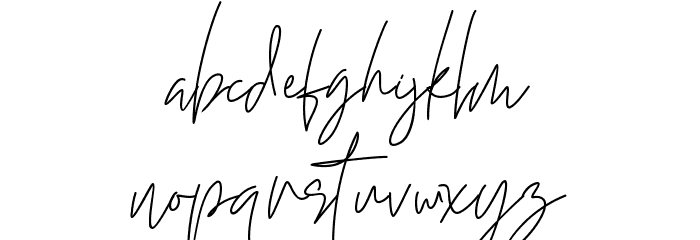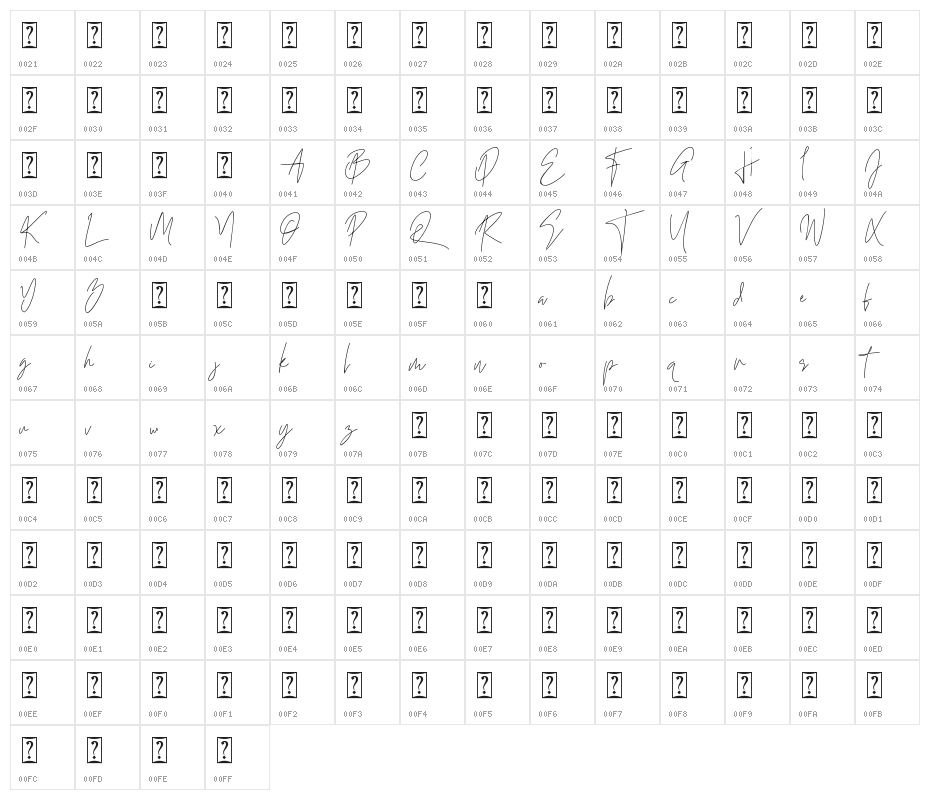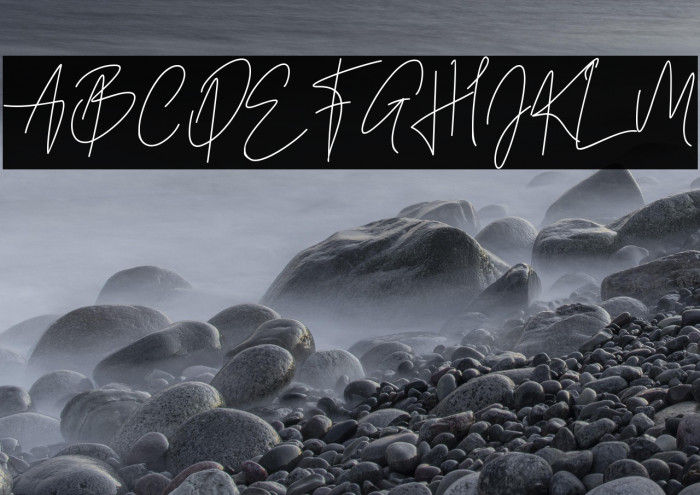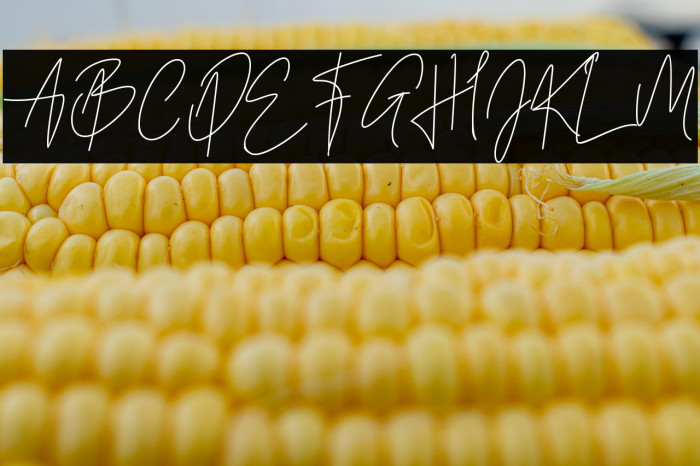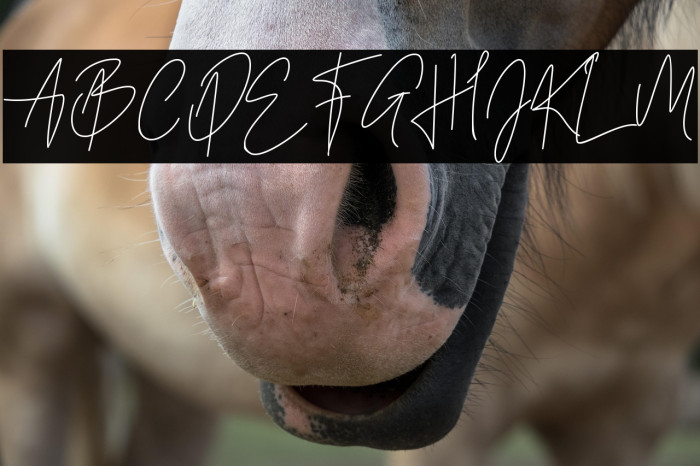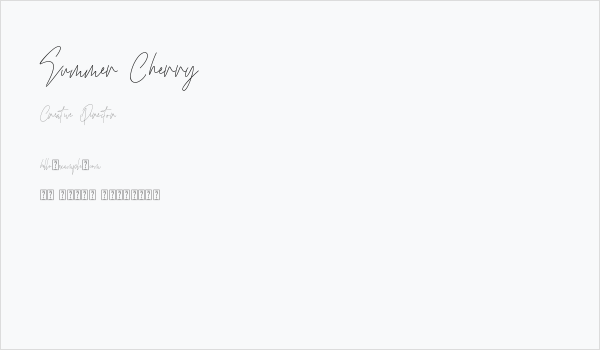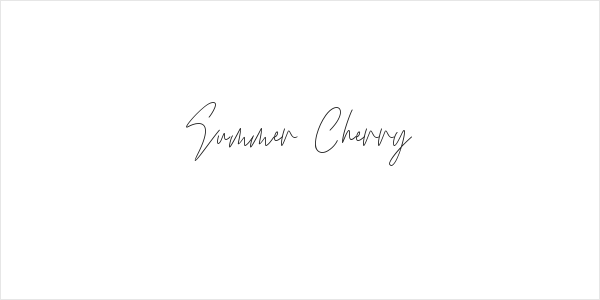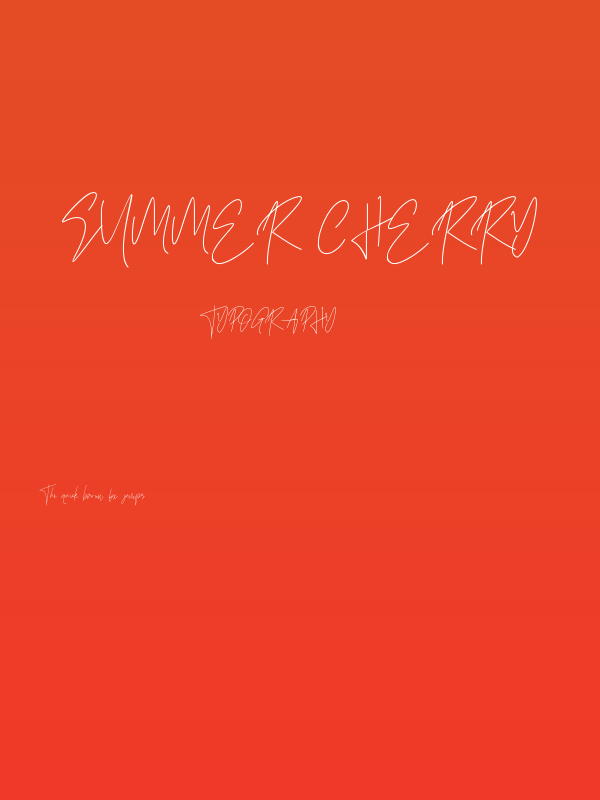
Summer Cherry Font
This font features a lively and dynamic handwritten style, characterized by its fluid and spontaneous strokes. The uppercase letters exhibit a playful, yet elegant flair with elongated lines and a slight slant, giving it a sense of movement and energy. The lowercase letters maintain a consistent flow, complementing the uppercase with their smooth curves and connected forms. The overall appearance is casual yet sophisticated, making it suitable for creative and expressive projects. The font's unique style is further enhanced by its irregular baseline, adding to its charm and authenticity.
A lively, handwritten font with fluid strokes and a playful, elegant flair.
- Font: Summer Cherry
- Proposed Projects: Ideal for wedding invitations, personal branding, greeting cards, and artistic posters.
- Use Case: Logos, Headlines, Artistic projects